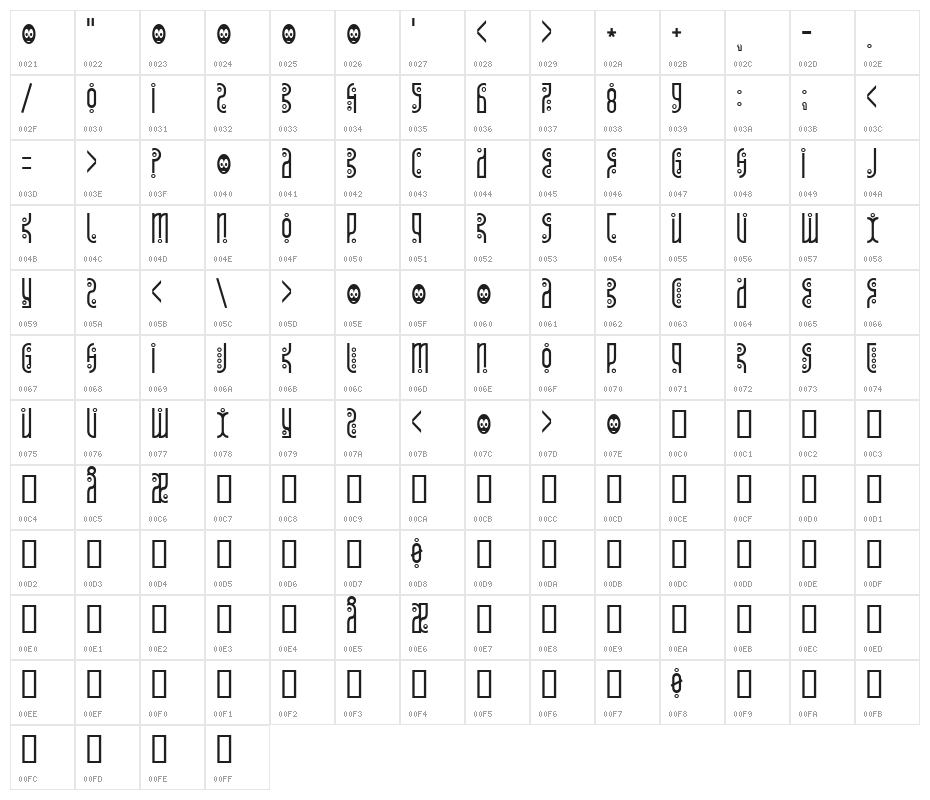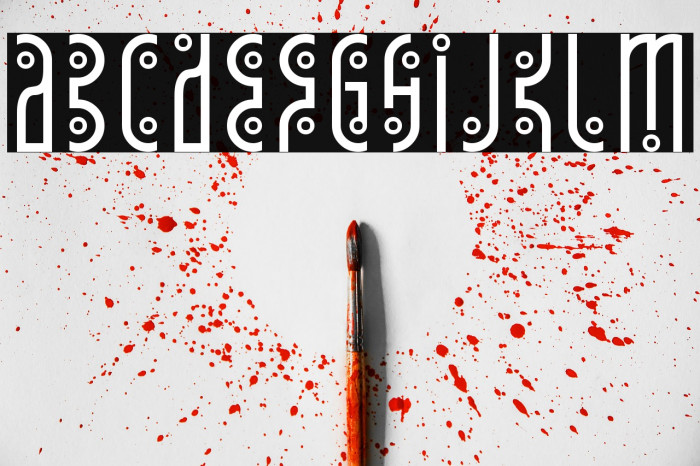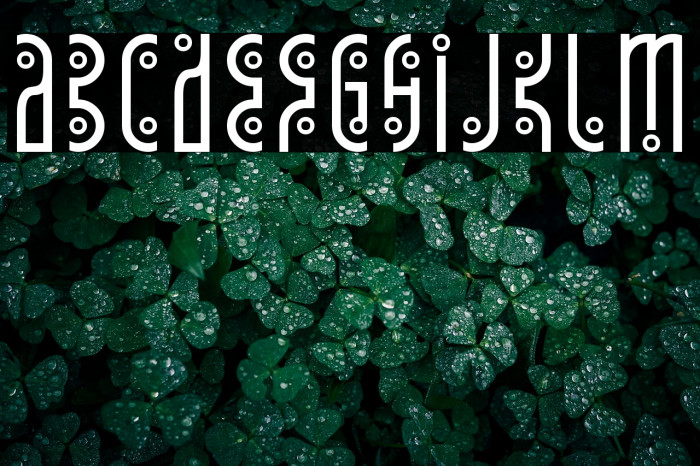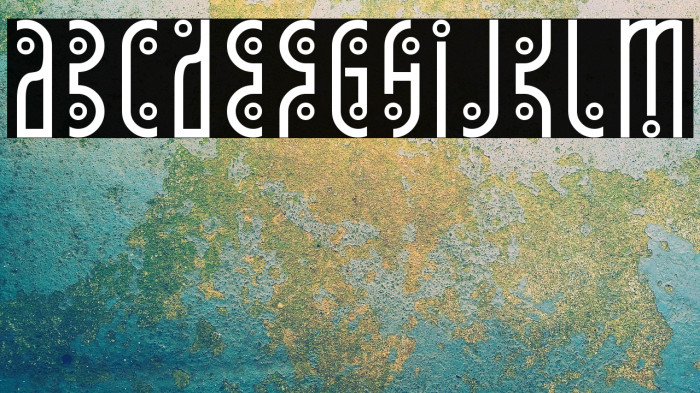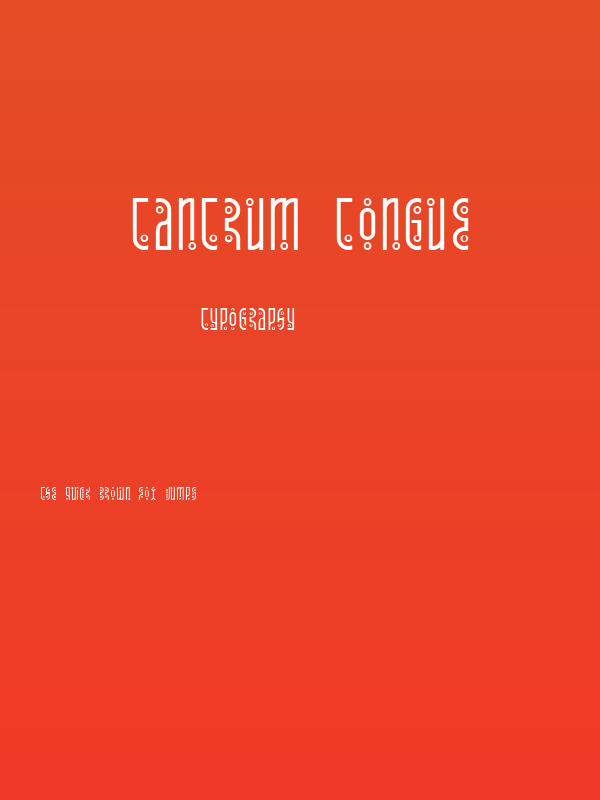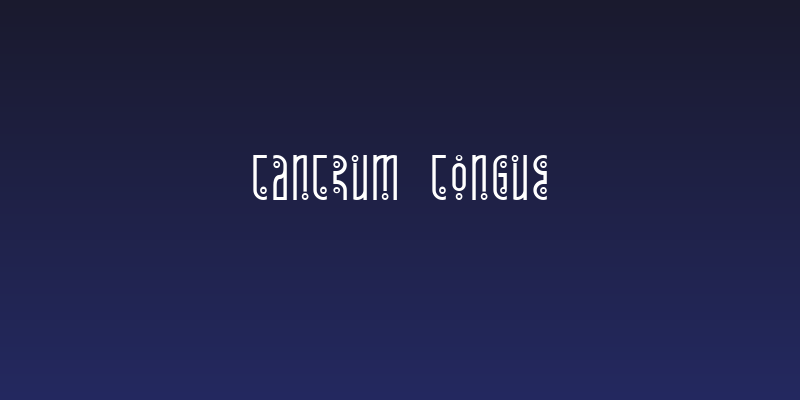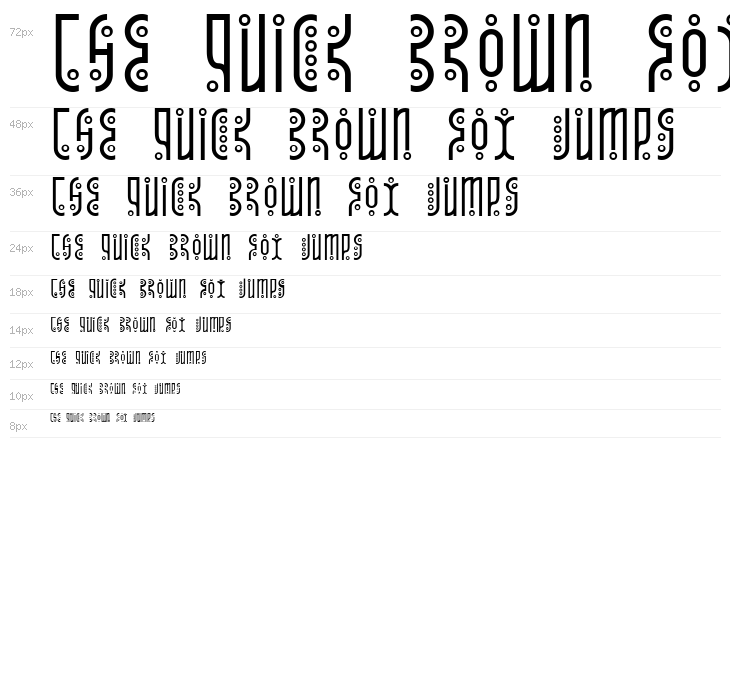
Tantrum Tongue Font
Tantrum Tongue Description
This font features a unique and playful design with a decorative style. Each character is adorned with circular embellishments that add a whimsical touch. The letters are bold and have a consistent stroke width, giving them a strong presence. The font maintains a uniform height across both uppercase and lowercase letters, creating a cohesive look. The numbers and special characters follow the same decorative theme, ensuring consistency throughout. This font is ideal for projects that require a fun and eye-catching aesthetic.
| Use Case | Logos, Posters, Creative Invitations |
| Proposed Projects | Ideal for children's books, playful branding, posters, and creative invitations. |